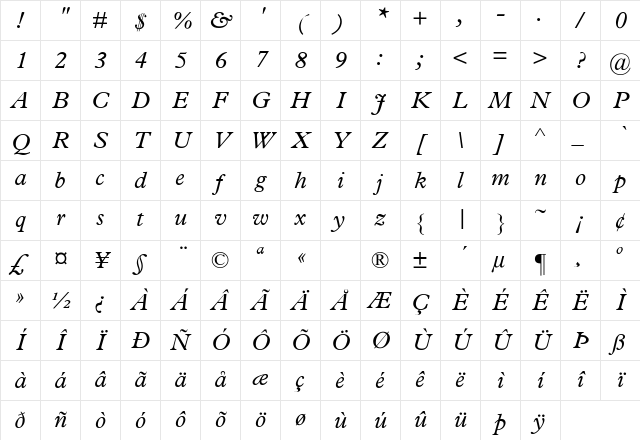
MPlantin-Italic is a composed and adaptable typeface that performs quietly and consistently across a wide range of design contexts. The slanted form adds forward momentum and visual energy.
Pro Tip: Use MPlantin-Italic for emphasis, pull quotes, and subheadings where its slanted energy can add rhythm to the layout.